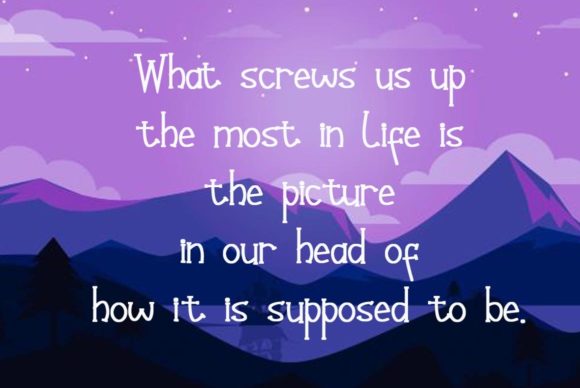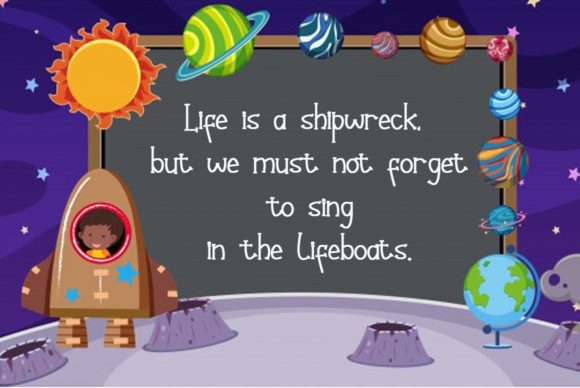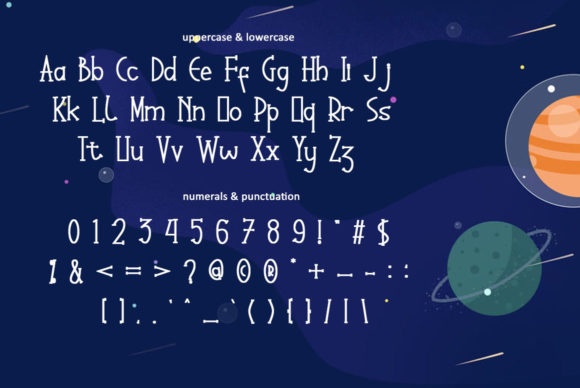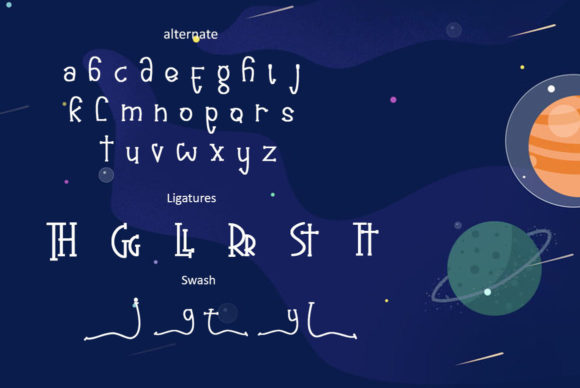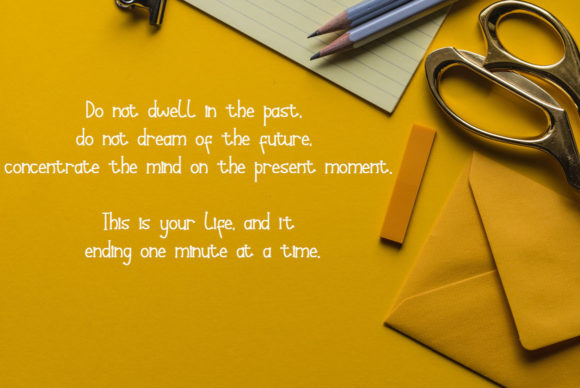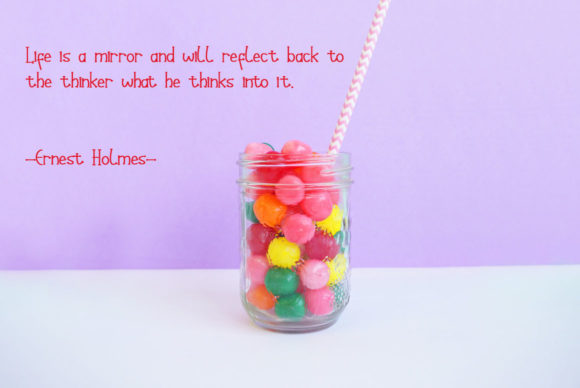
Introduction to Purple Moon Font
Have you ever been working on a creative project, pouring your heart and soul into it, and suddenly, the perfect font pops up in your mind? For many designers, this moment is a game-changer. It’s the moment when everything comes together, and the design starts to feel truly alive. For those who have experienced this magic, you know how crucial the right font can be. That’s why we’re excited to introduce you to the Purple Moon Font, a high-quality serif font that’s sure to elevate your next design project.
Whether you’re working on a logo design, cartoon, or branding project, the Purple Moon Font is a valuable addition to your design resource arsenal. With its elegant and stylish design, this font is perfect for creating a classy and unique logo that will set your brand apart from the rest.
Key Features of Purple Moon Font
- Unique, hand-drawn style with a transparent background, allowing for versatility in design applications.
- Comes in a single font size, making it easy to use across various design projects.
- Resolution-independent design, ensuring crisp and clear text display regardless of screen size or resolution.
- Perfect for designers seeking a creative, whimsical touch for their projects, including digital art, print materials, and more.
Honest Review: Purple Moon Font
As a designer, I’m always on the lookout for unique and high-quality design resources. The Purple Moon Font is a recent addition to my collection, and I must say it’s a gem. ✨ With a free download available, it’s an excellent resource for any creative project that needs a touch of elegance and sophistication.
One of the standout features of this font is its transparent background, making it easy to layer and combine with other design elements. This flexibility is a major plus in my book, especially when working on complex design projects.
- What works well: ✨
- Unique and elegant design aesthetic
- High-quality typography
- Limitations: ⚠️
- May not be suitable for bold or playful designs
- Limited character set compared to other fonts
Overall, I’m impressed with the Purple Moon Font. It’s a solid addition to any designer’s toolkit, especially for projects that require a touch of sophistication and elegance. While it may have some limitations, its unique design aesthetic and high-quality typography make it a worthwhile resource to have in your collection.
Purple Moon Font is ideal for various design projects, including:
- Brand logos and identity design
- Photography and art prints